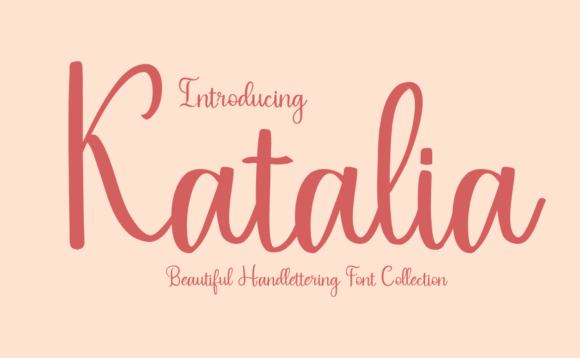
About Katalia Font
Katalia is an elegant script font with a contemporary atmosphere and impeccable form. Not too thin and not too thick, balanced and varied, this font was designed to enhance the beauty of your projects.